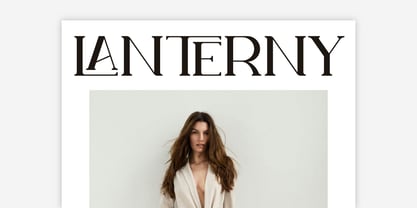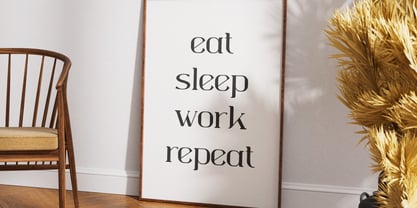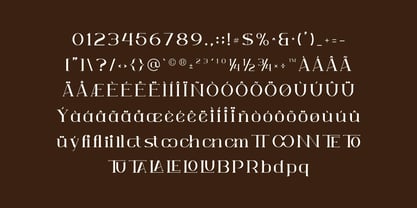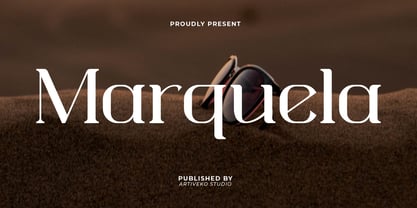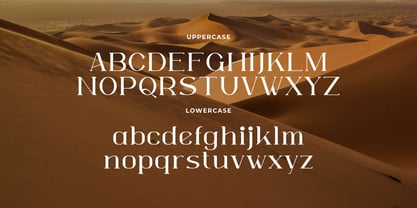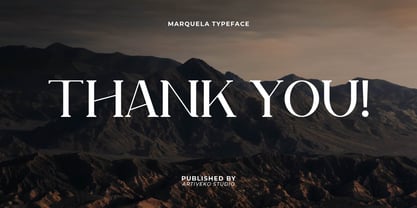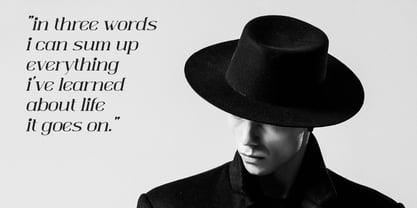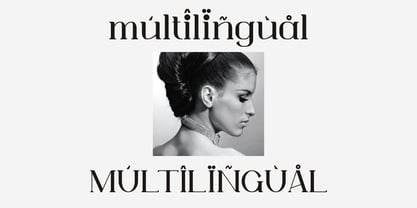
Marquela
by Artiveko
The Marquela Font Family was designed by Iwan Alwan and published by Artiveko. Marquela contains 2 styles and family package options. More about this family
Marquela is a refined serif font that combines classic beauty with modern elegance. Featuring sharp serifs, graceful curves, and balanced proportions, Marquela exudes luxury and professionalism, making it perfect for high-end branding, editorial layouts, fashion lookbooks, packaging, and wedding invitations.
Its stylish design ensures excellent readability while delivering a premium look that elevates any project. Marquela includes uppercase and lowercase letters, numerals, punctuation, multilingual support, and a selection of ligatures and stylistic alternates for added creativity.
Whether you’re designing an exclusive brand identity, an elegant magazine cover, or luxurious stationery, Marquela brings sophistication and timeless charm to your typography.
Add a touch of class to your designs with Marquela — the elegant serif font that merges tradition with modern aesthetics.